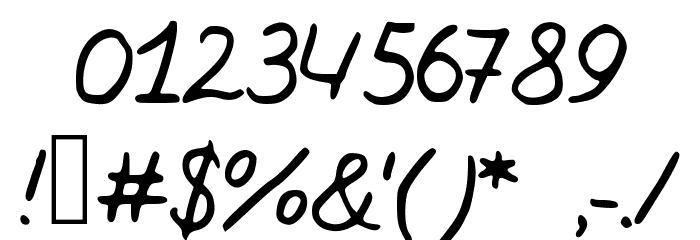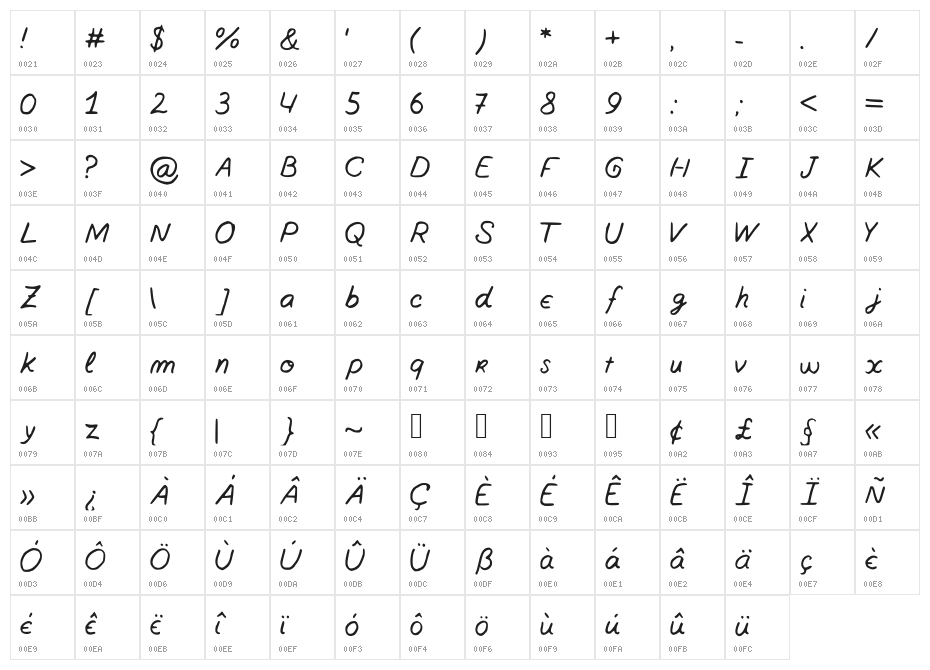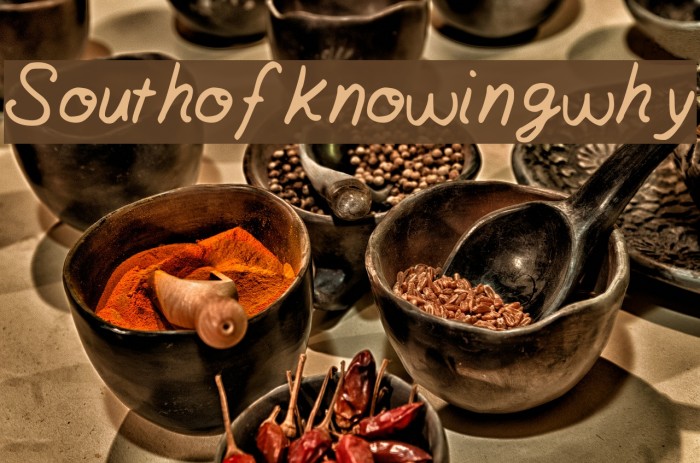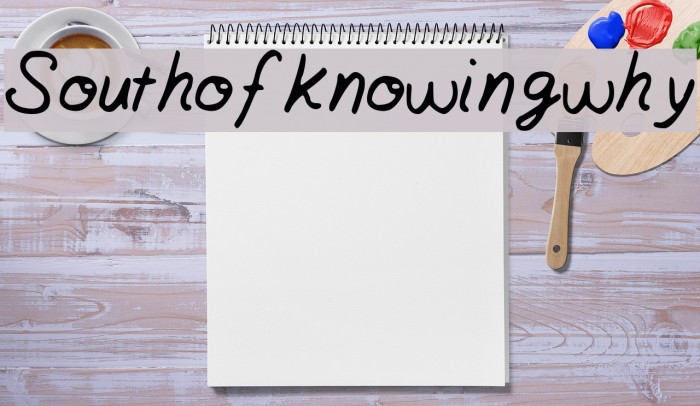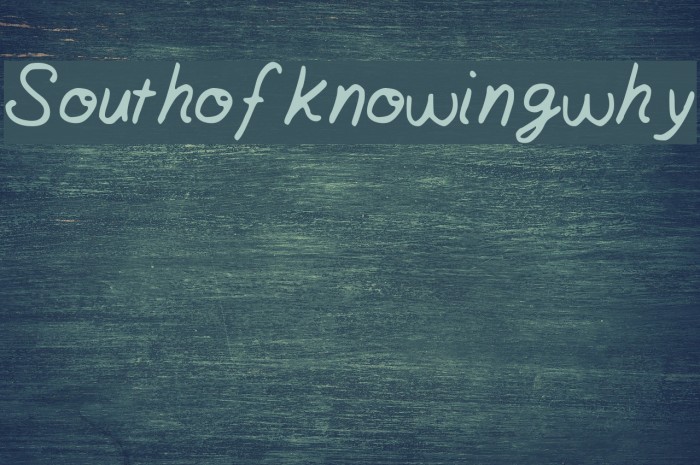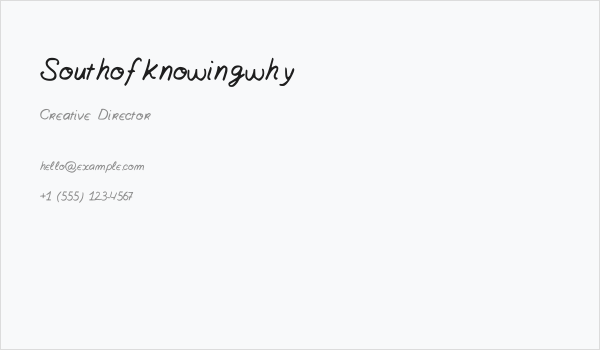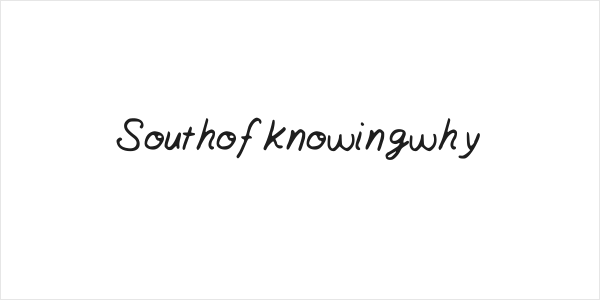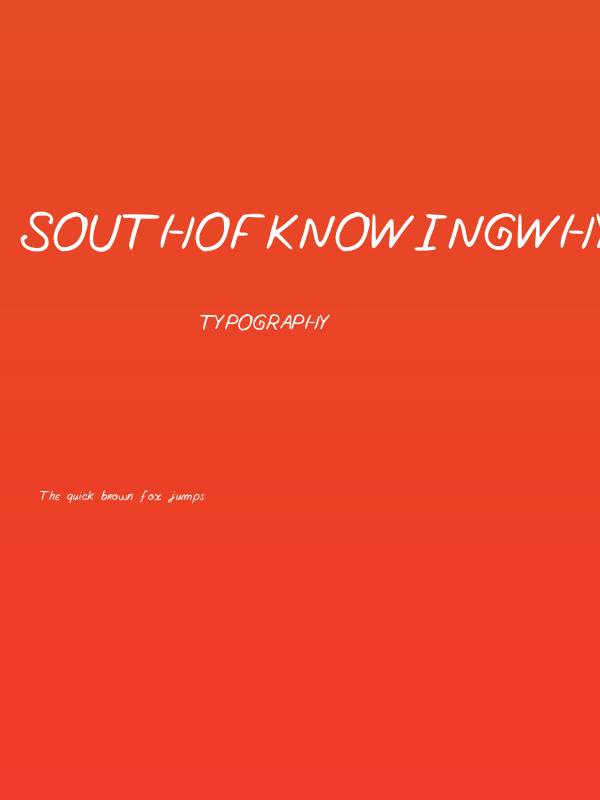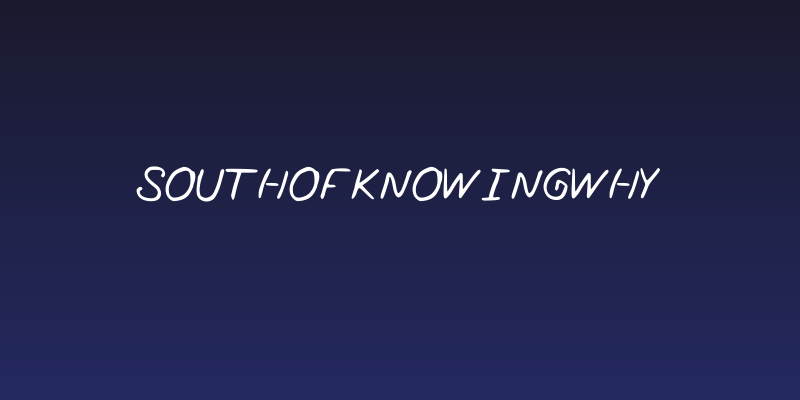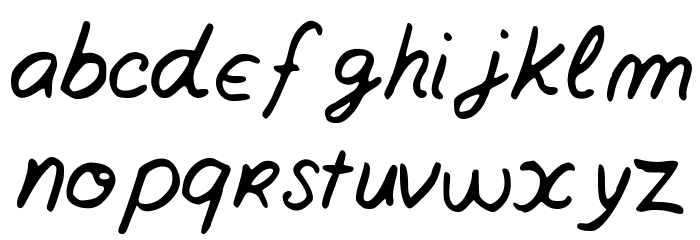
Southofknowingwhy Font
Southofknowingwhy Description
This font features a casual, handwritten style with a playful and informal appearance. The characters are slightly slanted, giving it a dynamic and lively feel. The strokes are smooth and consistent, with rounded edges that add to its approachable and friendly look. The uppercase letters are slightly larger than the lowercase, maintaining a balanced proportion. Numbers and special characters follow the same style, ensuring uniformity across all glyphs. This font is versatile and can be used in various contexts where a personal touch is desired.
| Use Case | Headlines, Informal text, Personal projects |
| Proposed Projects | Ideal for greeting cards, personal invitations, casual branding, and social media graphics. |